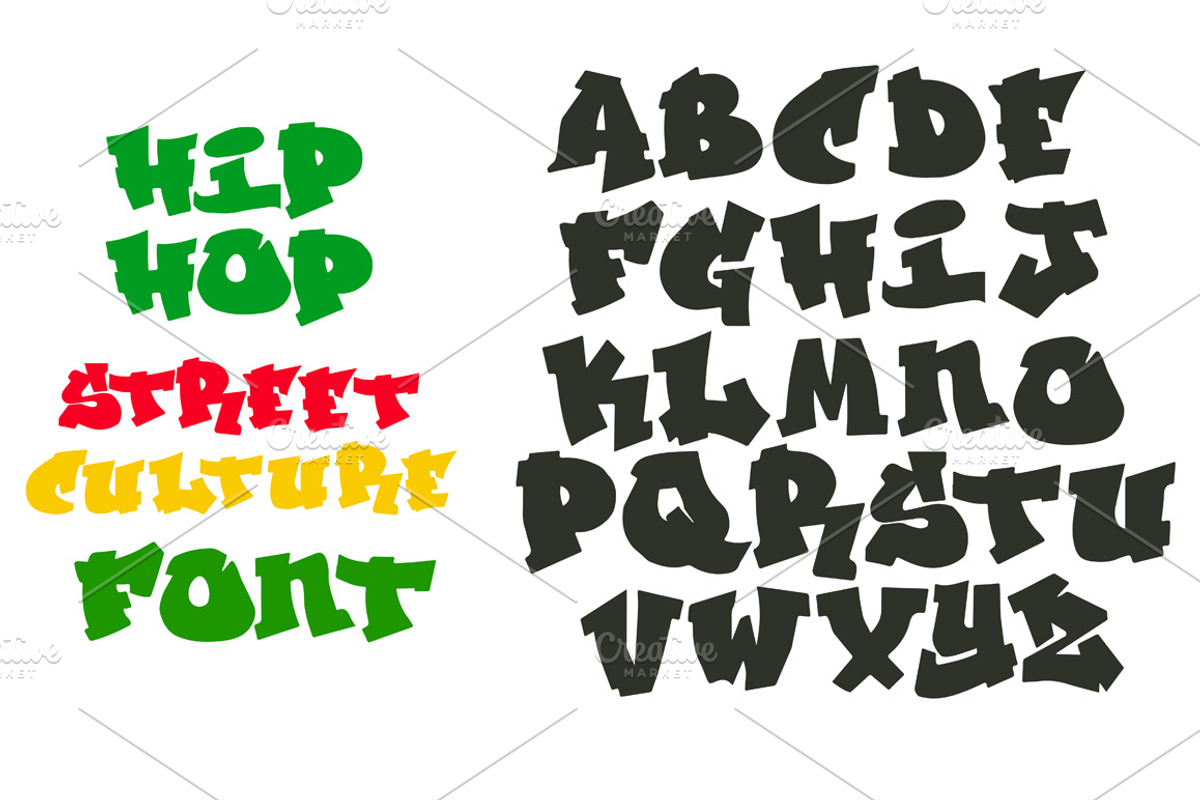
Hip Hop Graffiti font alphabet
write your own color graffiti / easy to edit
Why Hip Hop Graffiti font alphabet is worth a look
Hip Hop Graffiti font alphabet by AntonyChernianu fits naturally into Branding, posters, packaging, typography.